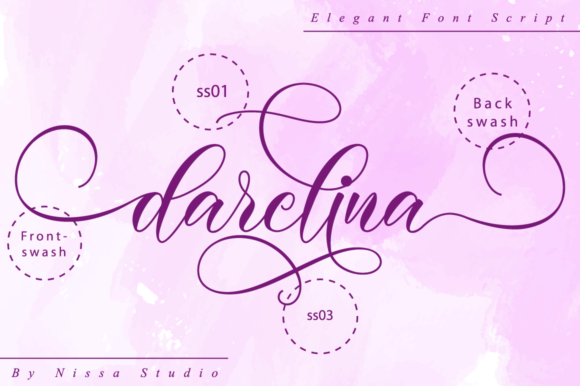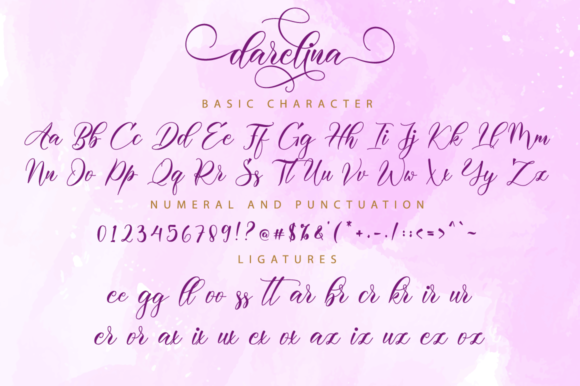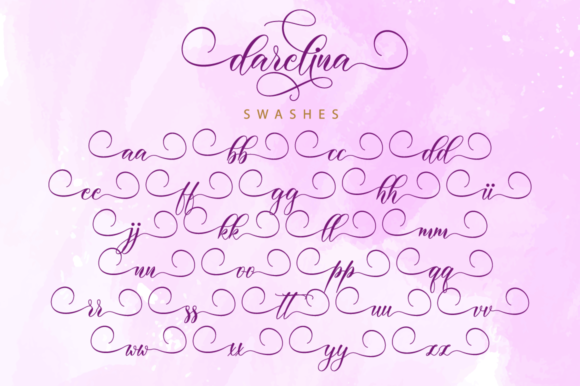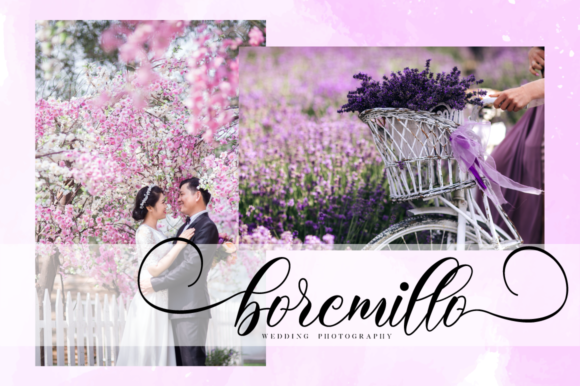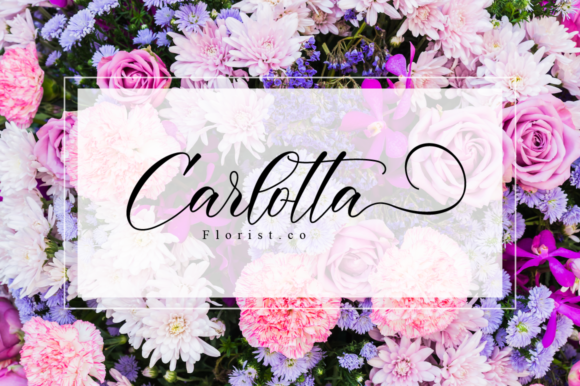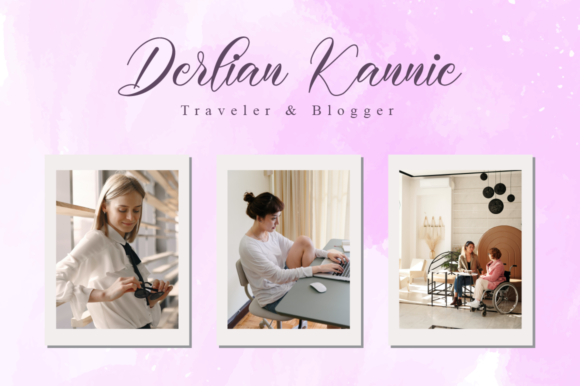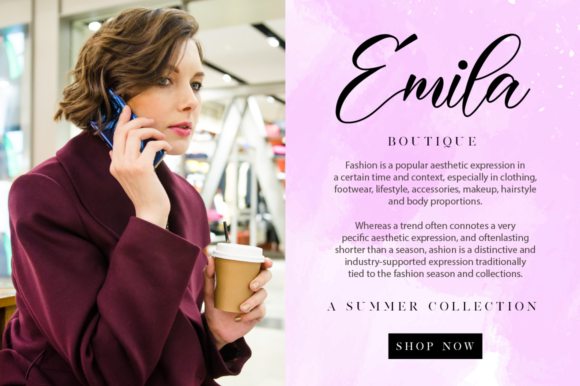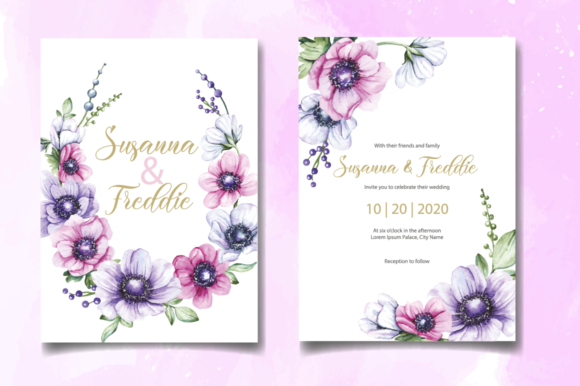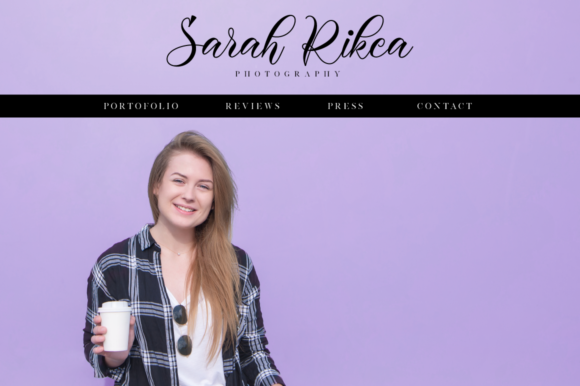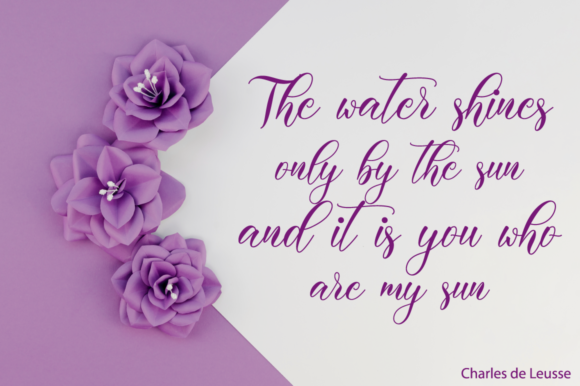
Darelina Font
About Darelina Font
Darelina is stunning handwritten font. It is PUA encoded which means you can access all of the glyphs and swashes with ease! It features a varying baseline, smooth lines, gorgeous glyphs and stunning alternates. Fall in love with its incredibly versatile style and use it to create spectacular designs!